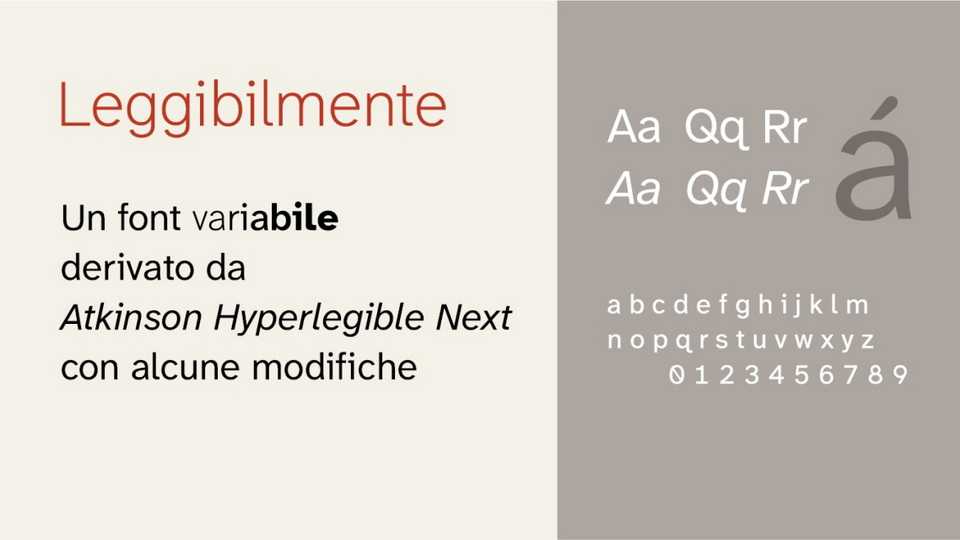
Download Leggibilmente font, a highly readable and modern sans serif variable typeface, based on the principles of Atkinson Hyperlegible Next.
Designer: Michele Casanova